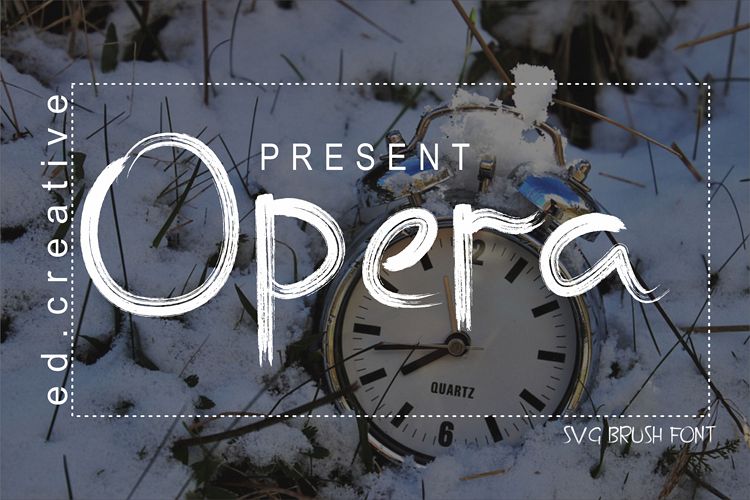
Opera
opera font is a letter shape with brush style, and svg, opera font can be used in all designs, suitable for cover books, magazines, films and others ...